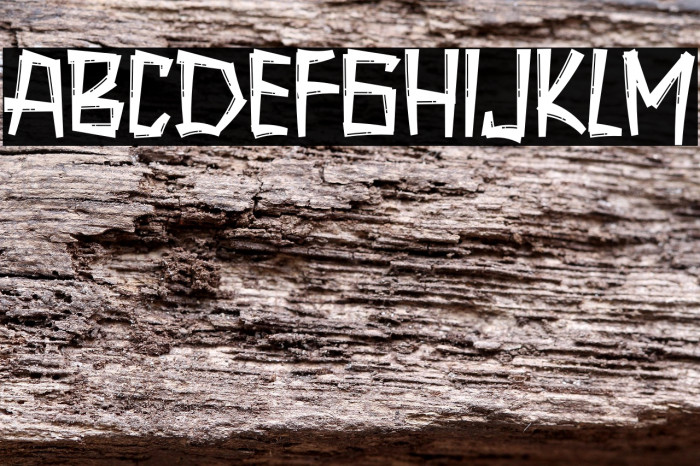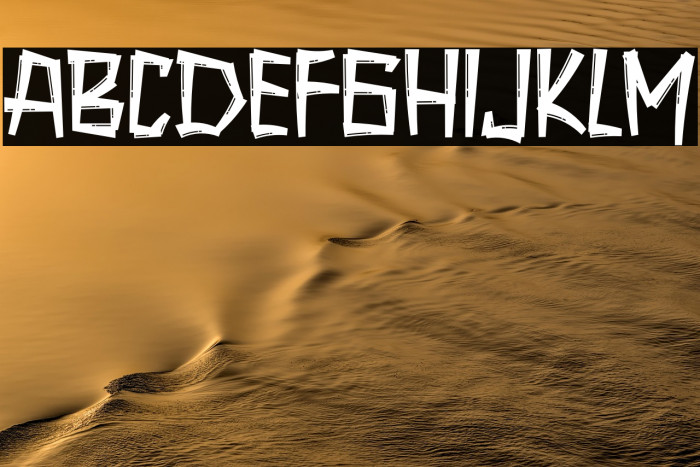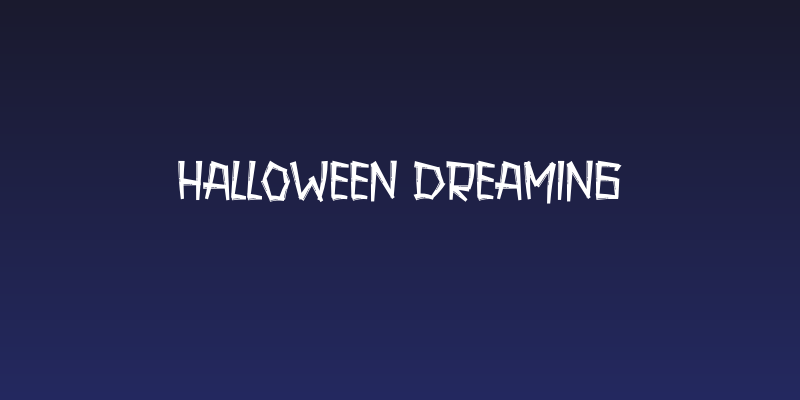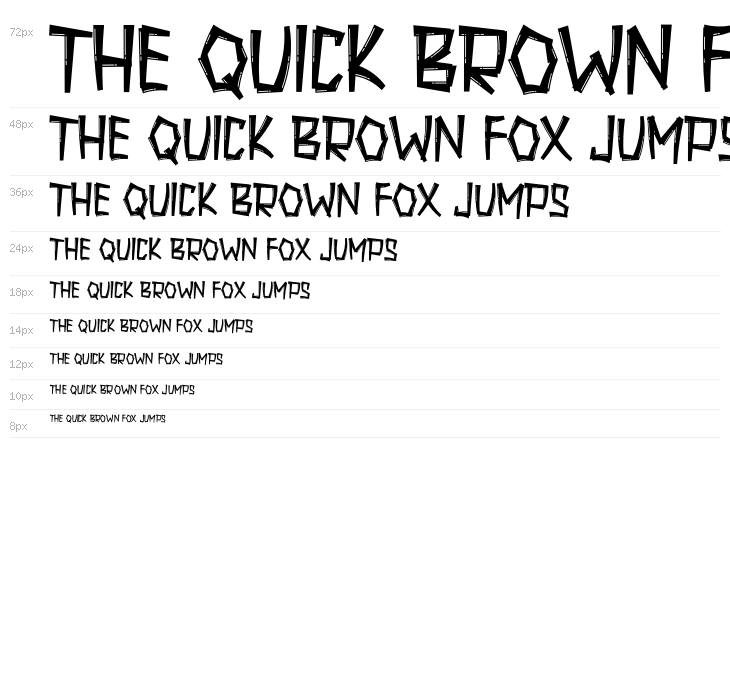
Halloween Dreaming Font
Halloween Dreaming Description
This font features a playful and spooky design, perfect for Halloween-themed projects. The letters have an irregular, jagged appearance, reminiscent of hand-drawn or carved shapes. The bold strokes and uneven edges give it a dynamic and energetic feel, while the slightly tilted characters add to its whimsical charm. The numbers and special characters maintain the same quirky style, ensuring consistency across all text elements. This font is ideal for creating eye-catching headlines or decorative text that captures the spirit of Halloween.
| Proposed Projects | Ideal for Halloween invitations, party flyers, spooky-themed posters, and decorative signage. |